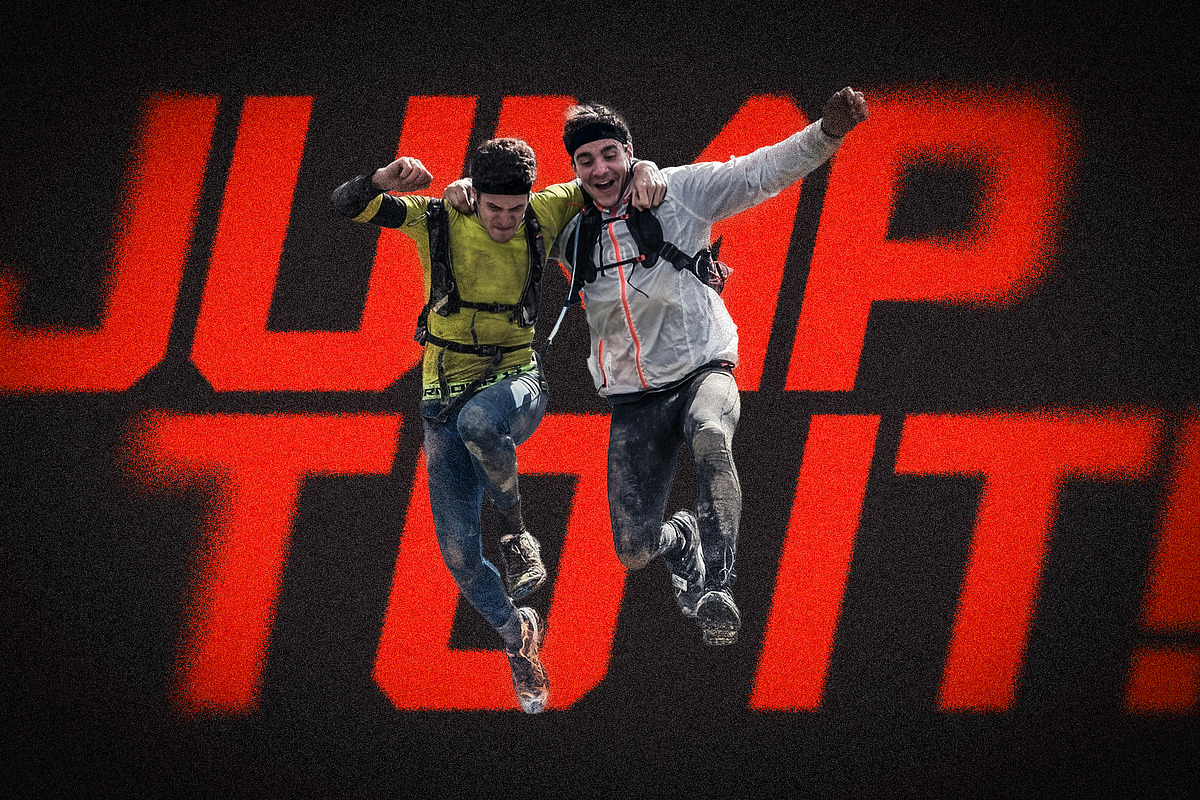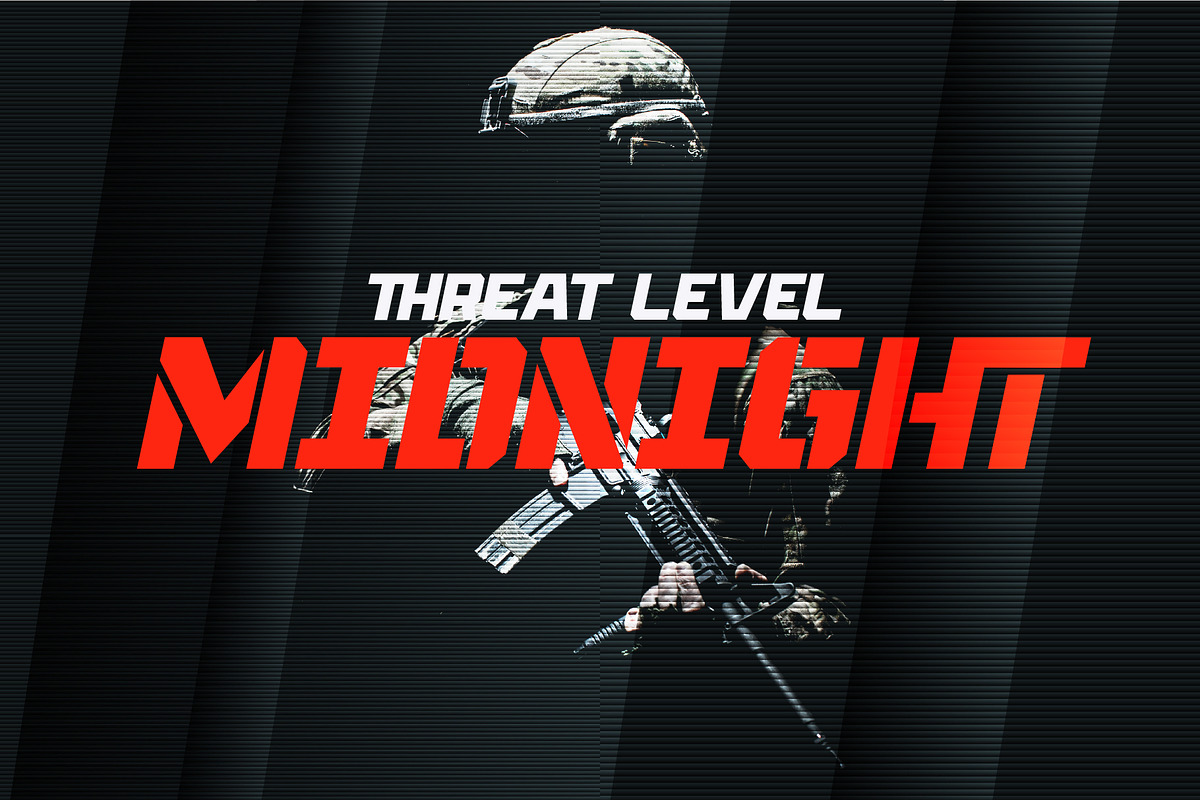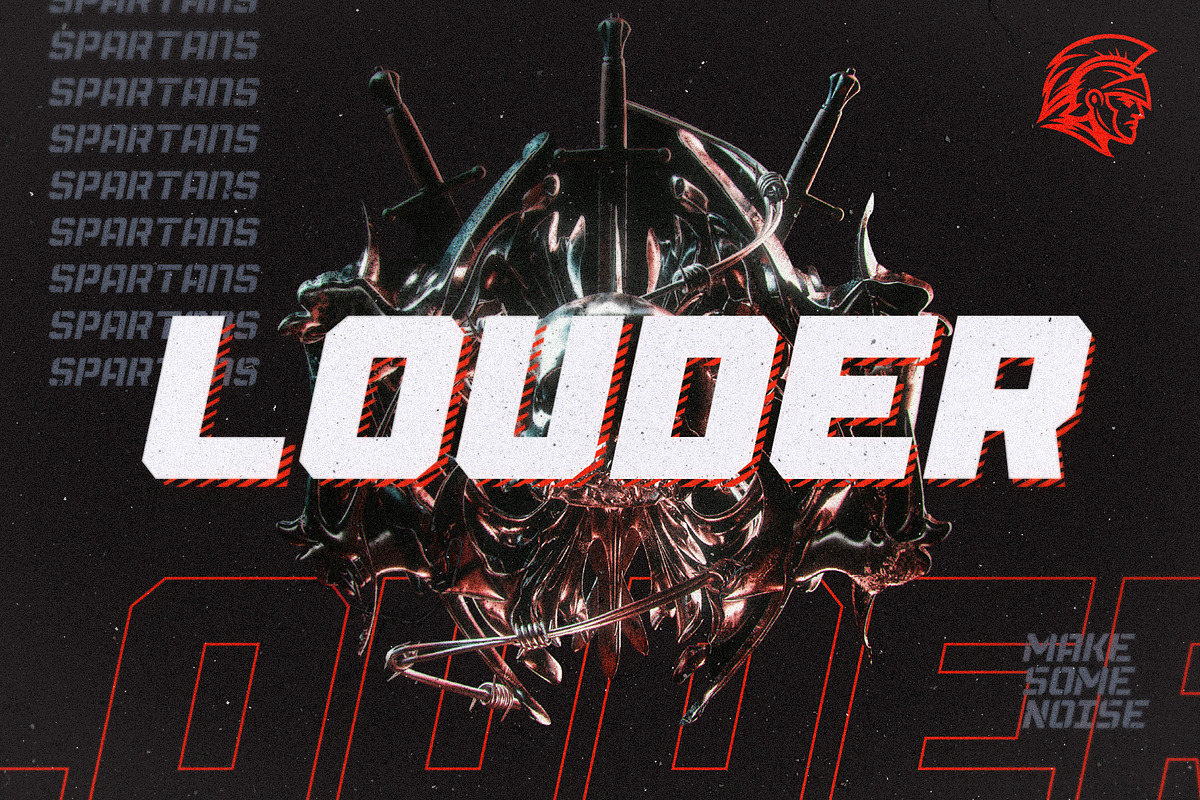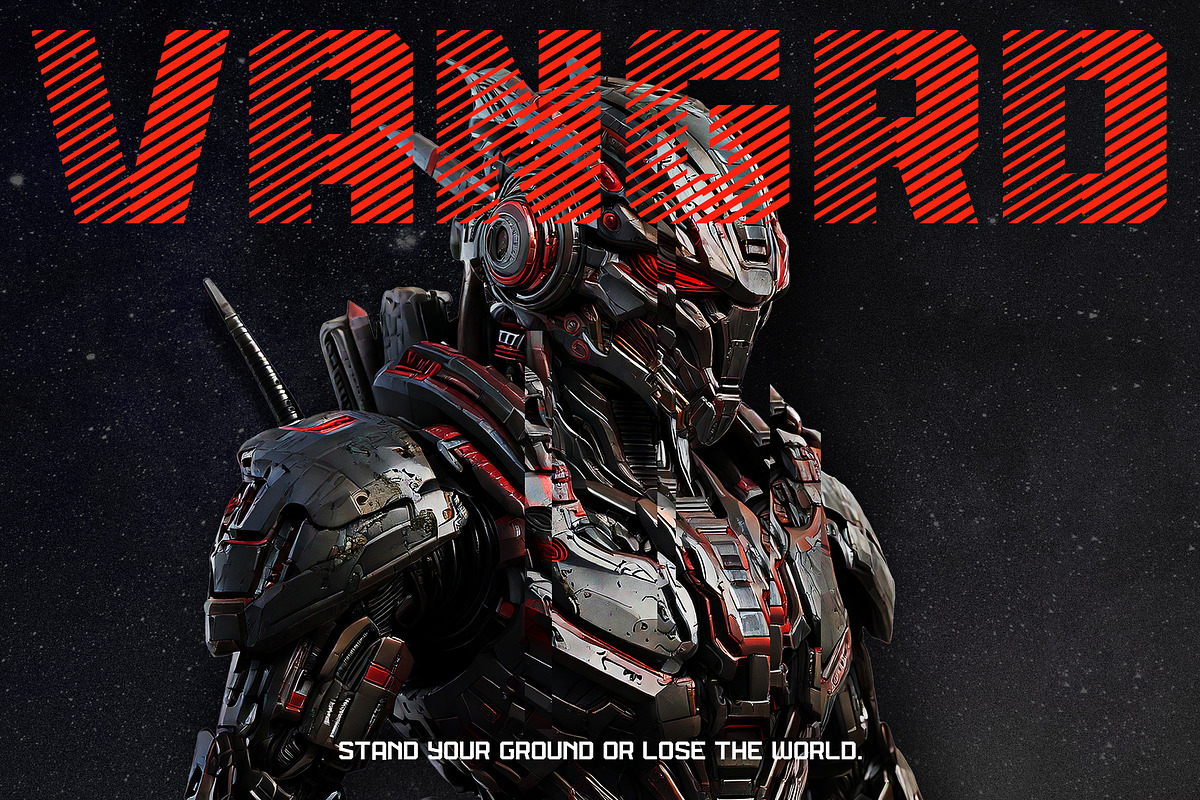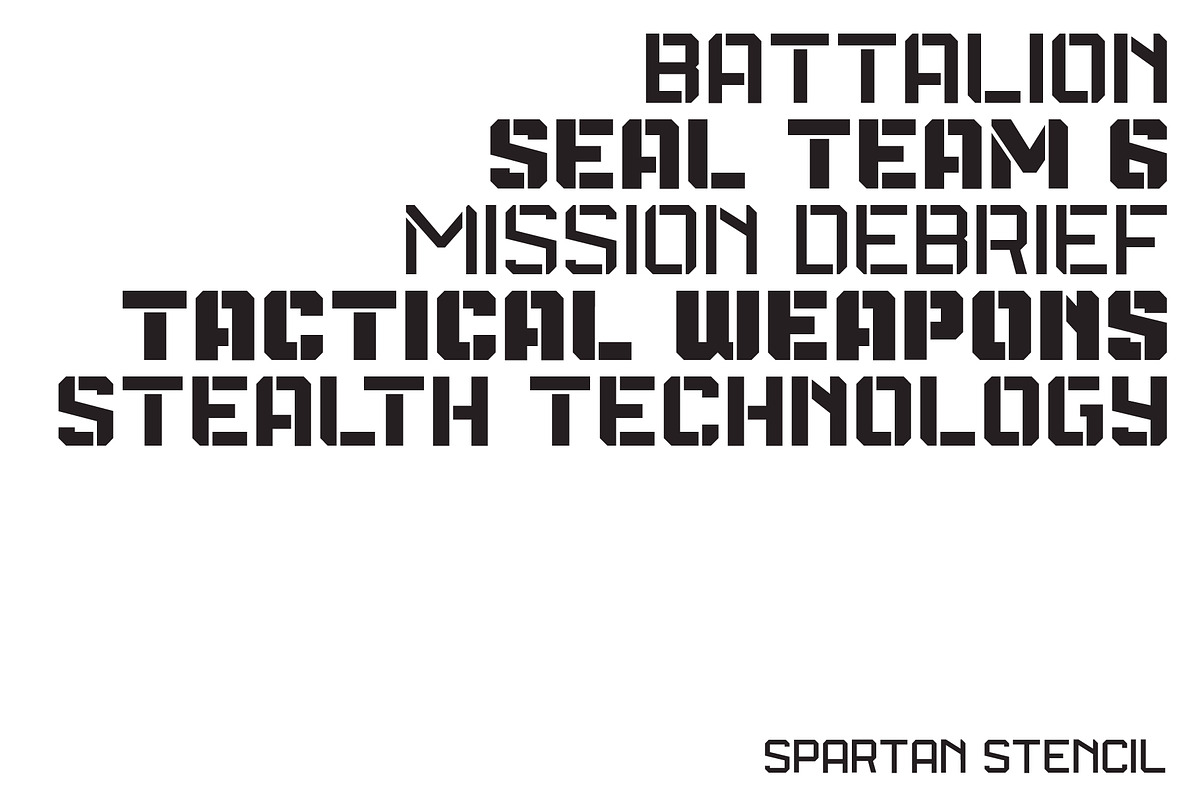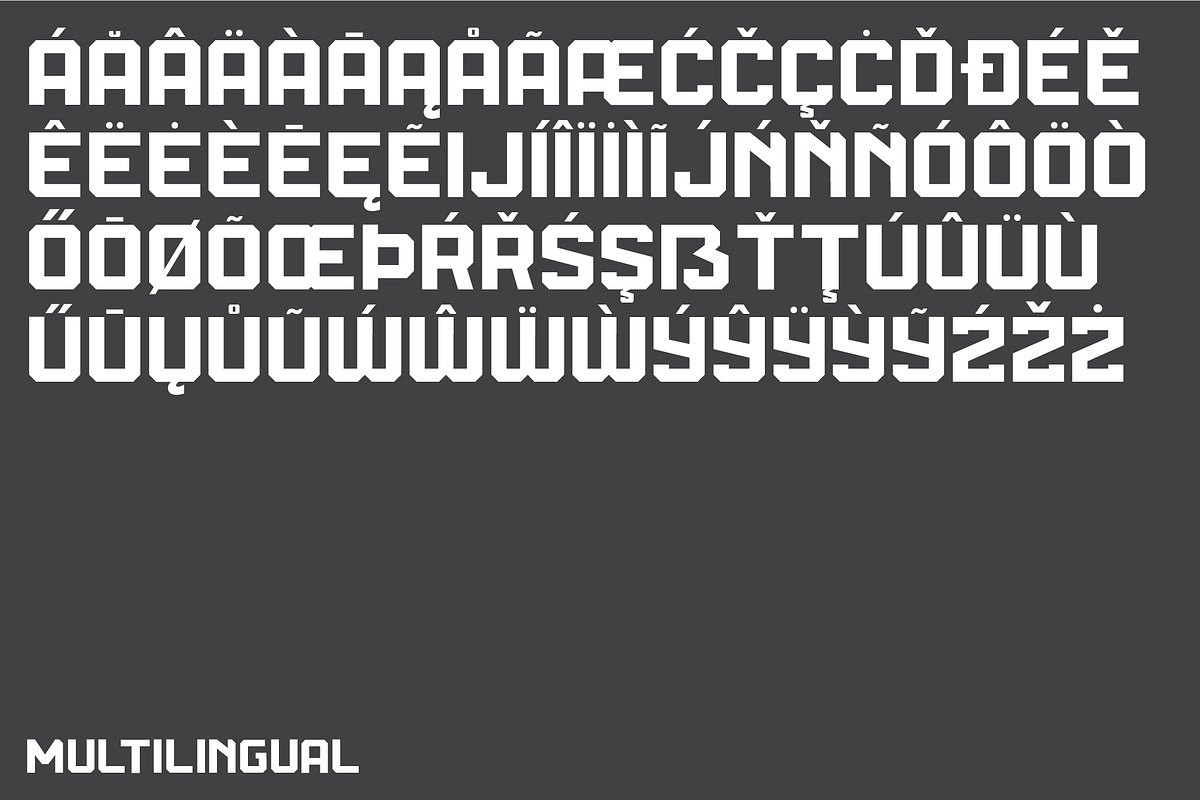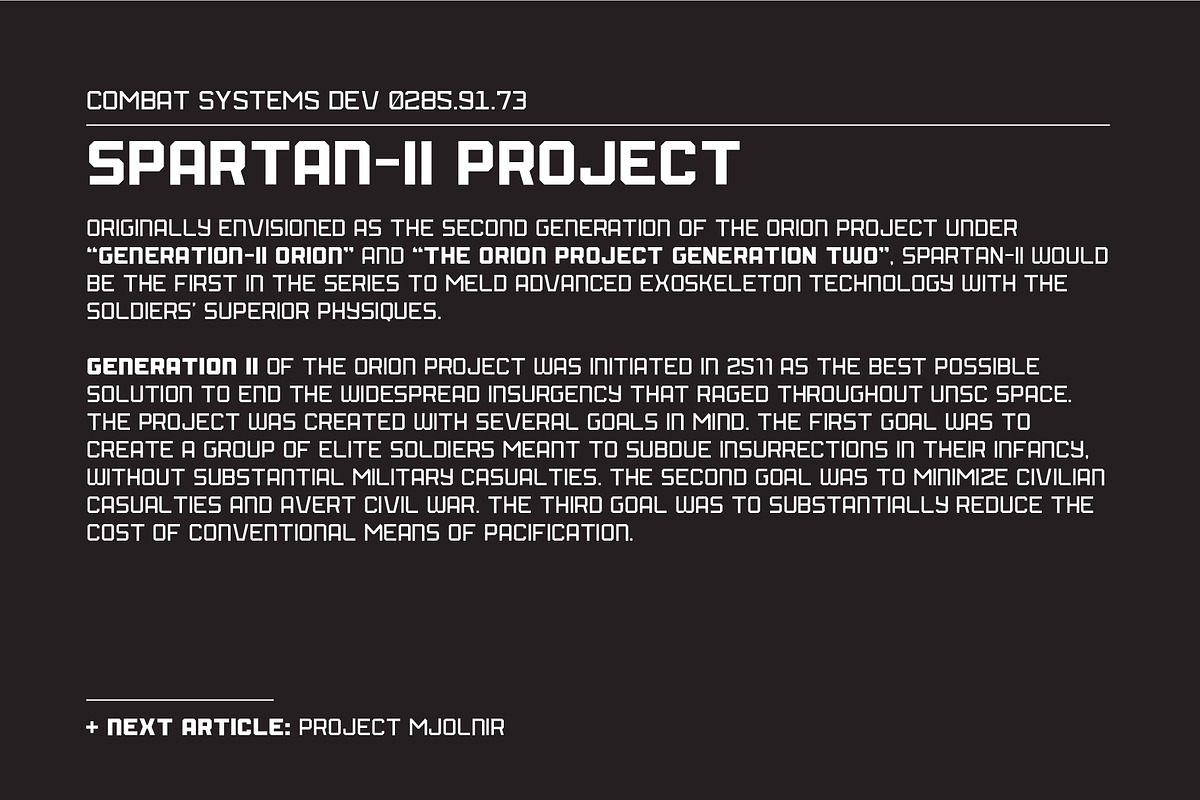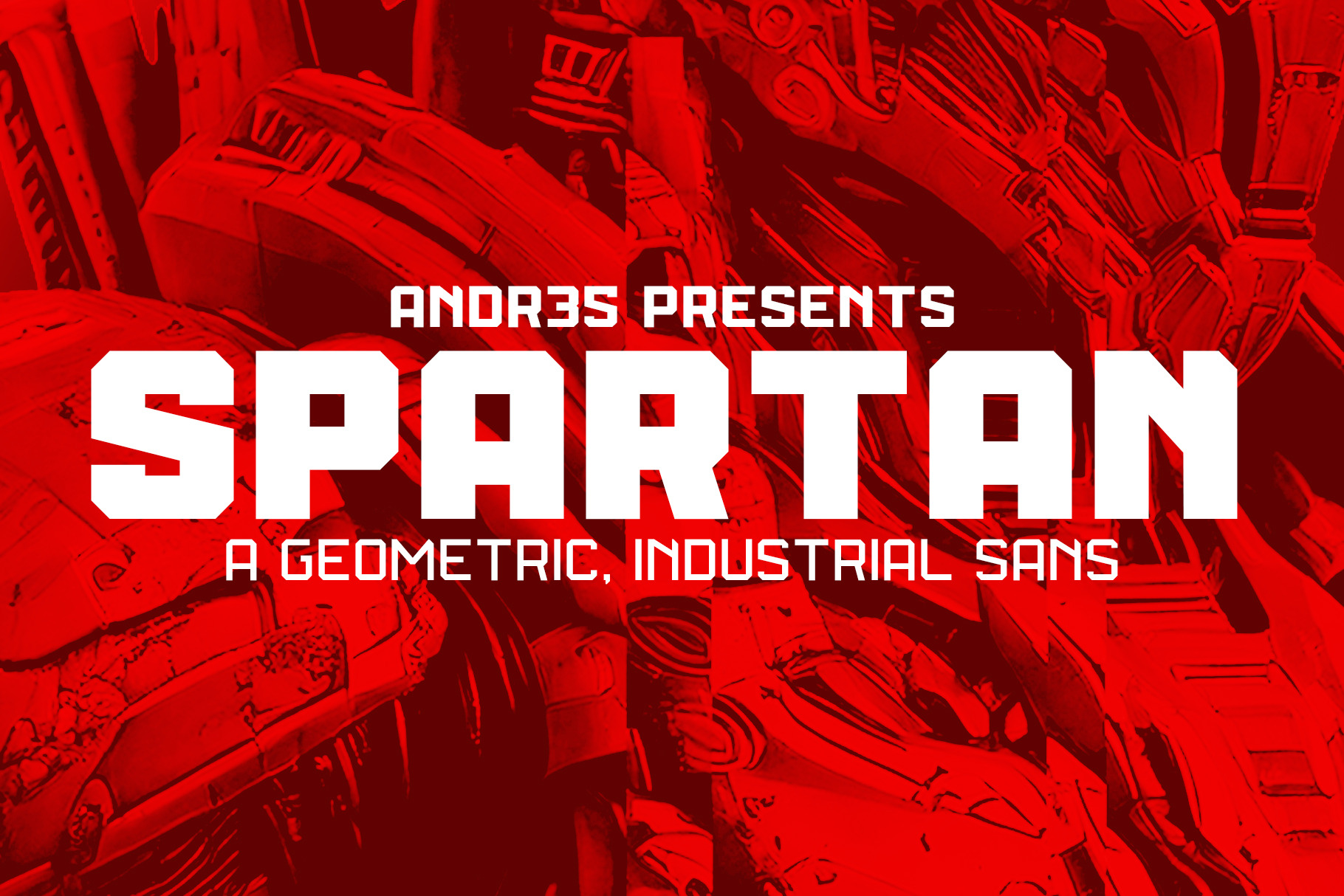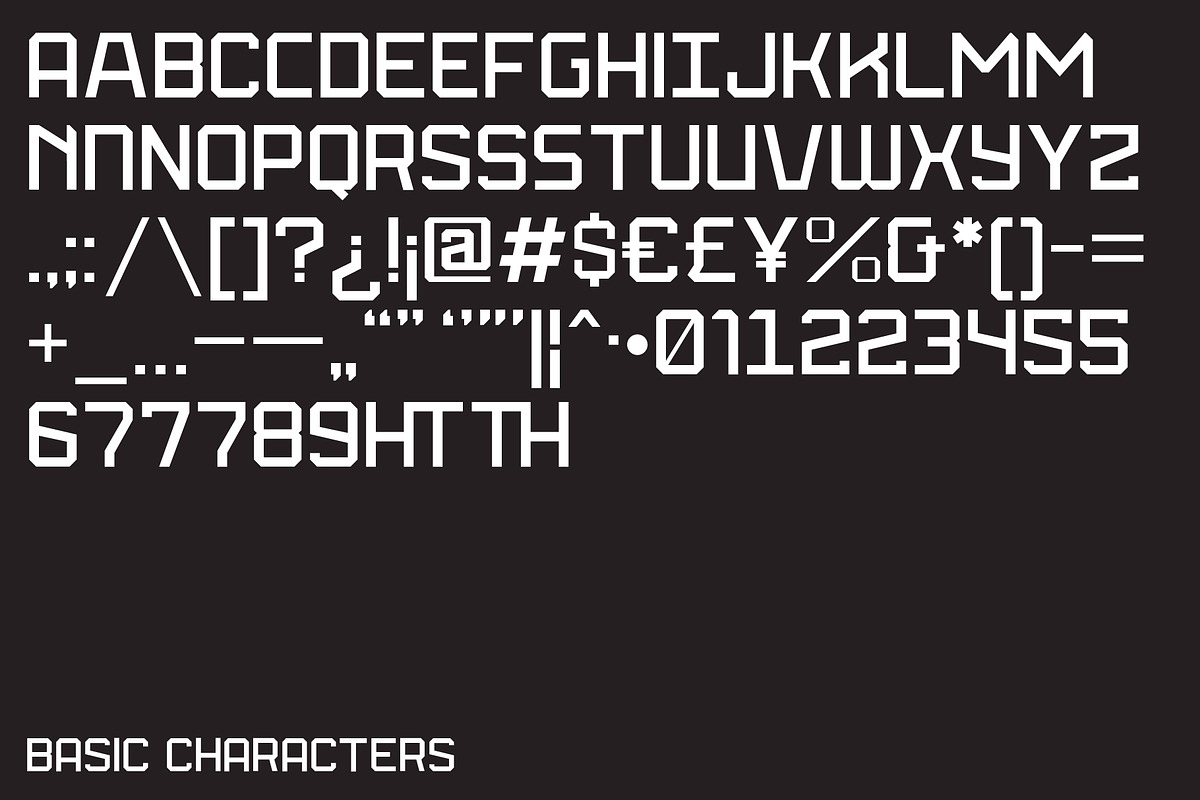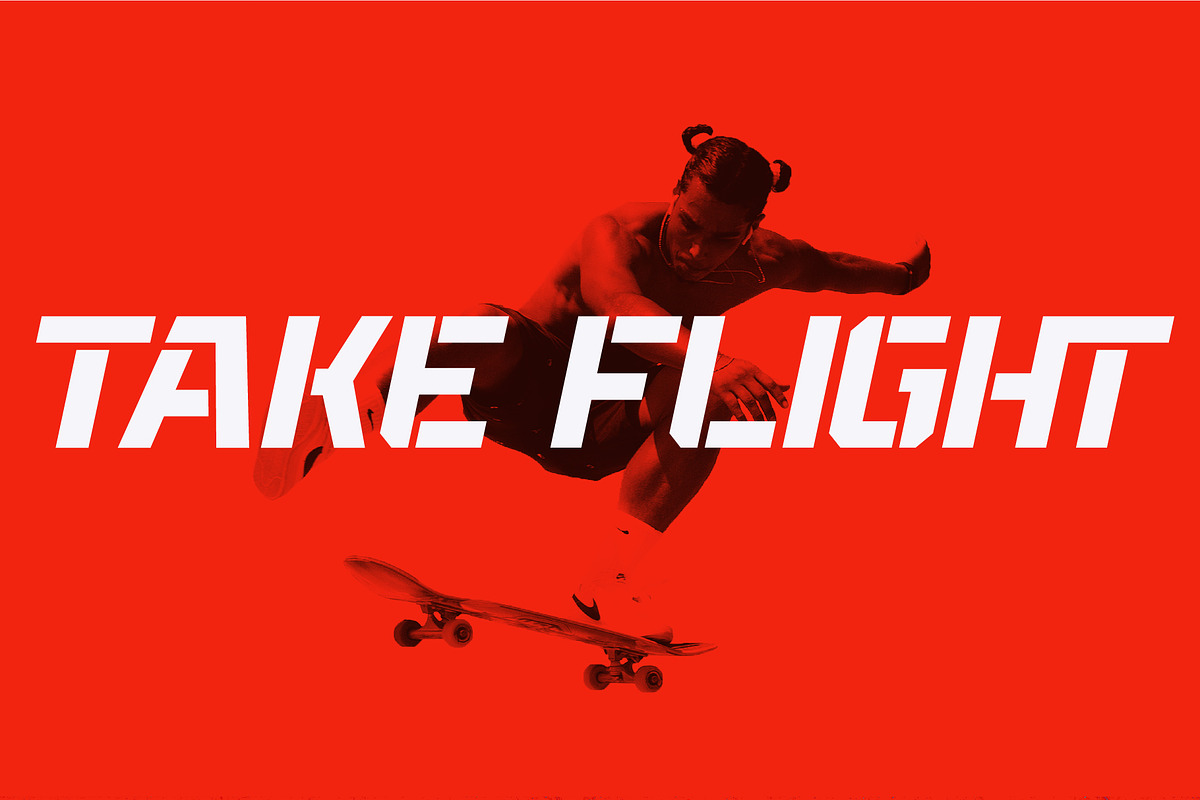
Spartan Font Family V2
Introducing SPARTAN (V2), a geometric, industrial sans serif font family inspired by grit, sport and the desire to dominate and destroy your opponent. It's got a bold attitude and can be used over a diversity of projects. You could use it for sports design, editorial, entertainment, military, apparel and more.
Inspiration came from military and sports font design like Nike/Adidas. With such a range of characters you can use SPARTAN for a range of print/digital projects such as ads, social media, and branding.
SPARTAN (V2) Features Include:
- Spartan: 5 weights, 5 Italics
- Spartan Stencil: 5 weights, 5 Italics
- Spartan Line: 1 weight + Italic / Limited characters
- All Caps font (type in lower or uppercase, doesn't matter)
- Expanded # of Alternate Glyphs
- Expanded accents for multi-language support